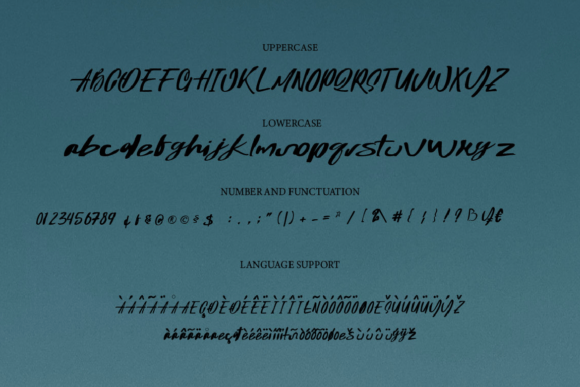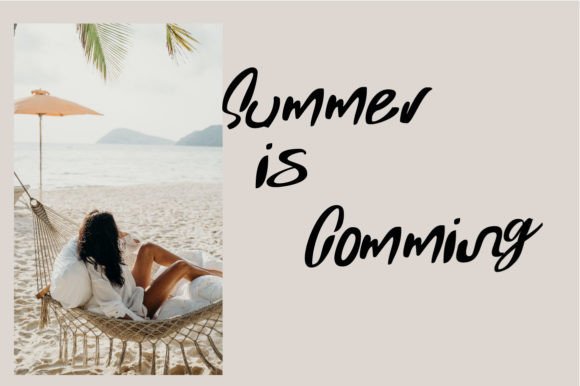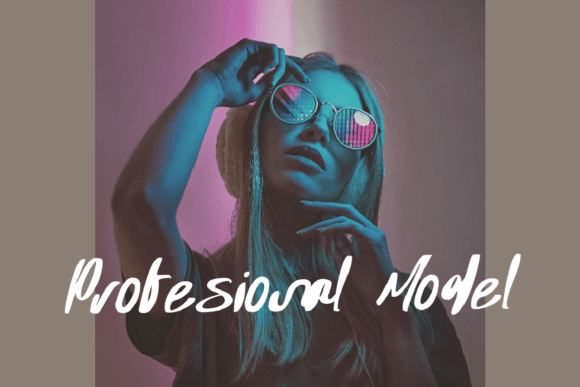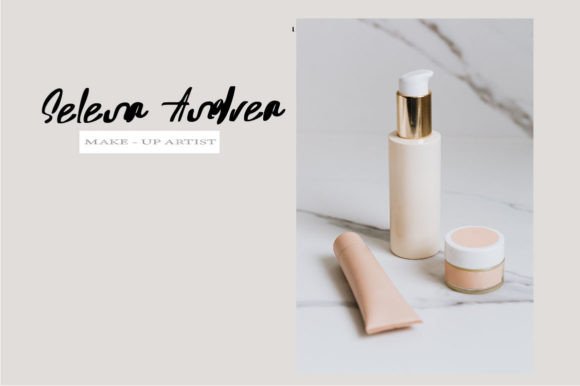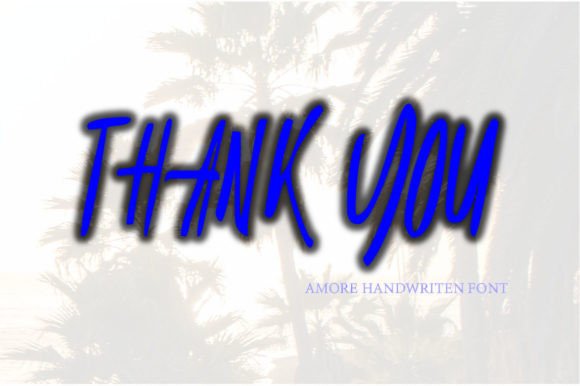
The Amore Font: A Stylish Touch for Your Designs
I’ll never forget the time I was working on a project for a client who wanted a bold, eye-catching headline that would make their brand stand out. I scoured the internet for the perfect font, but nothing seemed quite right. That was until I stumbled upon the Amore font. This gorgeous, handwritten font has been a game-changer for my designs, and I’m excited to share it with you.
A Personal Review: What I Love About Amore
So, what makes Amore so special? Here are a few things that I love about this font:
- ✨ Bold and confident: Amore reads strong and dynamic, making it perfect for headlines and logotype projects.
- ✅ Nostalgic character: This font has a unique, nostalgic feel that adds a touch of personality to your designs.
- 💥 Versatile: Amore can be used for a wide range of projects, from branding and advertising to packaging and more.
While Amore is an amazing font, there are a few small quirks to be aware of:
- 🤔 Limited use for body text: Due to its bold and decorative nature, Amore may not be the best choice for body text or long blocks of text.
- ⚠️ Requires attention to spacing: As with any bold font, it’s essential to pay attention to spacing to ensure that your text doesn’t look too crowded or overwhelming.
A Practical Guide: Using Amore in Your Designs
The Designer Inspiration Behind Amore
While the true story behind Amore’s creation may be unknown, it’s easy to imagine that the designer was inspired by classic handwritten fonts with a bold and confident feel. Perhaps they wanted to create a font that would add a touch of nostalgia and personality to modern designs. Whatever the inspiration, Amore is a font that’s sure to make your designs stand out.
| Q: What type of projects is Amore best suited for? | A: Amore is perfect for headlines, logotype projects, and any design that requires a bold and confident font. |
| Q: Can I use Amore for body text? | A: While Amore can be used for body text, it may not be the best choice due to its bold and decorative nature. |